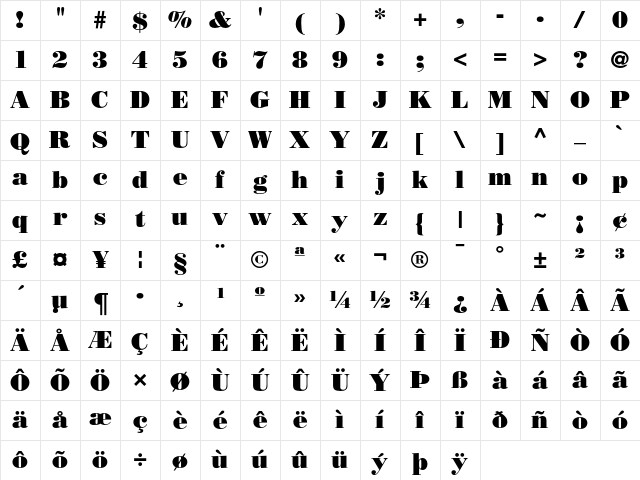
Bodoni Poster Free Font
Bodoni Poster
Style: Poster
Complete Bodoni Poster glyph index. Displaying only characters natively supported by Bodoni Poster font.
Design Context for Bodoni
Bodoni is a composed and adaptable typeface that performs quietly and consistently across a wide range of design contexts.